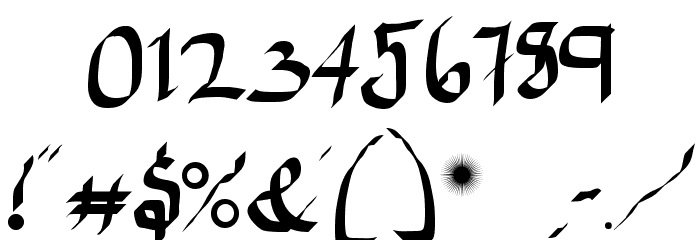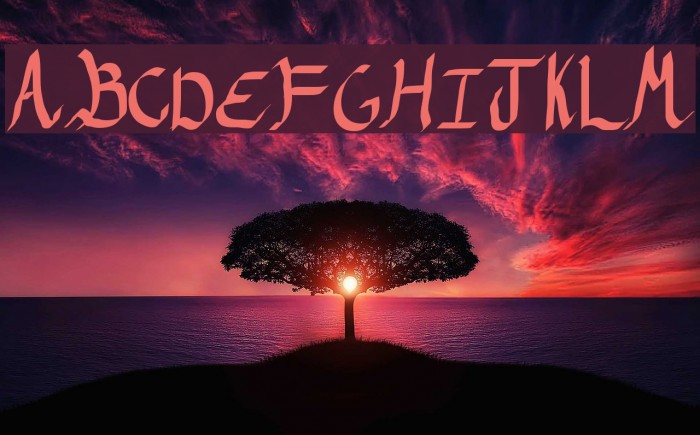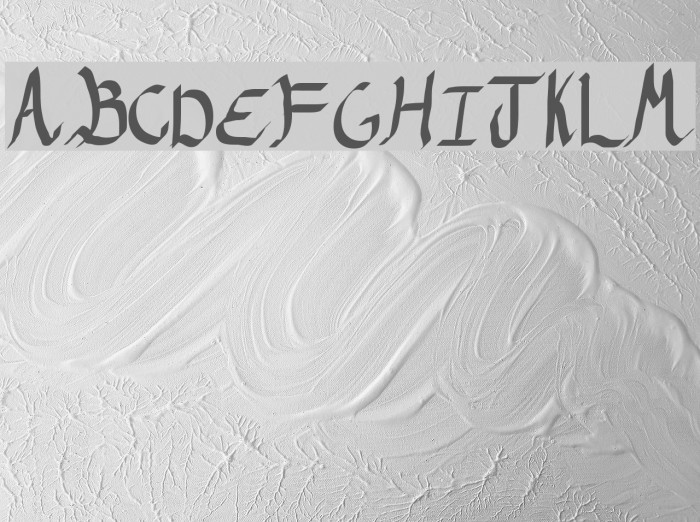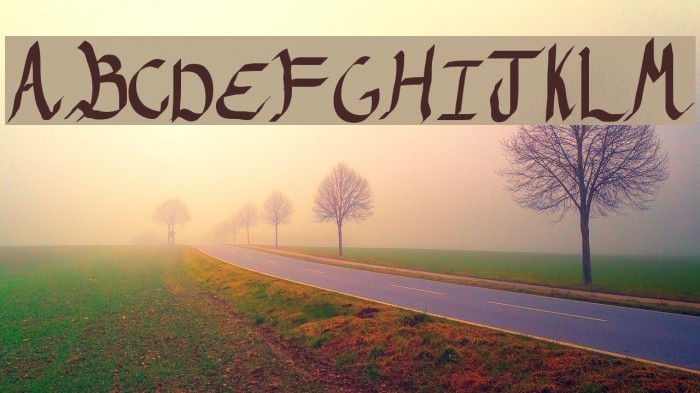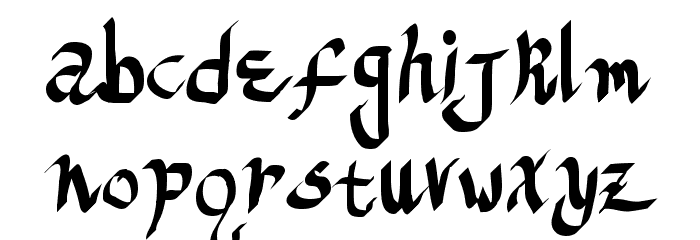
ReGifter Bold Font
This font features a bold, calligraphic style with a distinct flair that combines both elegance and a touch of whimsy. The characters are crafted with sharp, angular strokes that give them a dynamic and energetic appearance. The uppercase letters are particularly striking, with exaggerated curves and pointed edges that create a sense of movement. The lowercase letters maintain this style but with a slightly softer approach, making them more readable while still retaining the overall aesthetic. Numbers and special characters are designed to match the bold and artistic nature of the alphabet, ensuring a cohesive look across all text. This font is ideal for projects that require a dramatic and artistic touch, such as invitations, posters, or branding materials that aim to stand out.
A bold, calligraphic font with sharp, angular strokes and a dynamic appearance.
• Proposed Projects: Ideal for invitations, posters, branding materials, and any project requiring a dramatic, artistic touch.